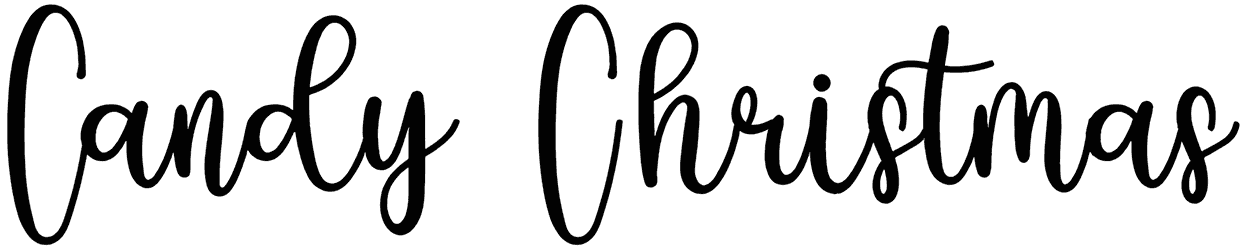
Candy Christmas Font
Candy Christmas is like an extension of the soul and a deeply personal expression of one’s thoughts. Each letter in this handwritten font is imbued with its unique personality that reflects the quirks of its author.
The lines in this Christmas font are imperfect, but they can create a sense of raw originality that machines cannot replicate. So wherever you need a personal touch in invitation cards, sincere greetings, or clothing, you can add warmth to your message with Candy Christmas.